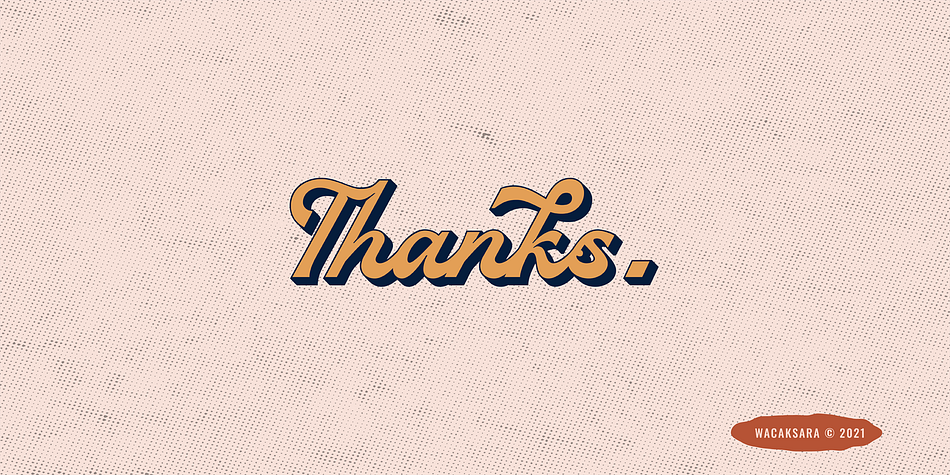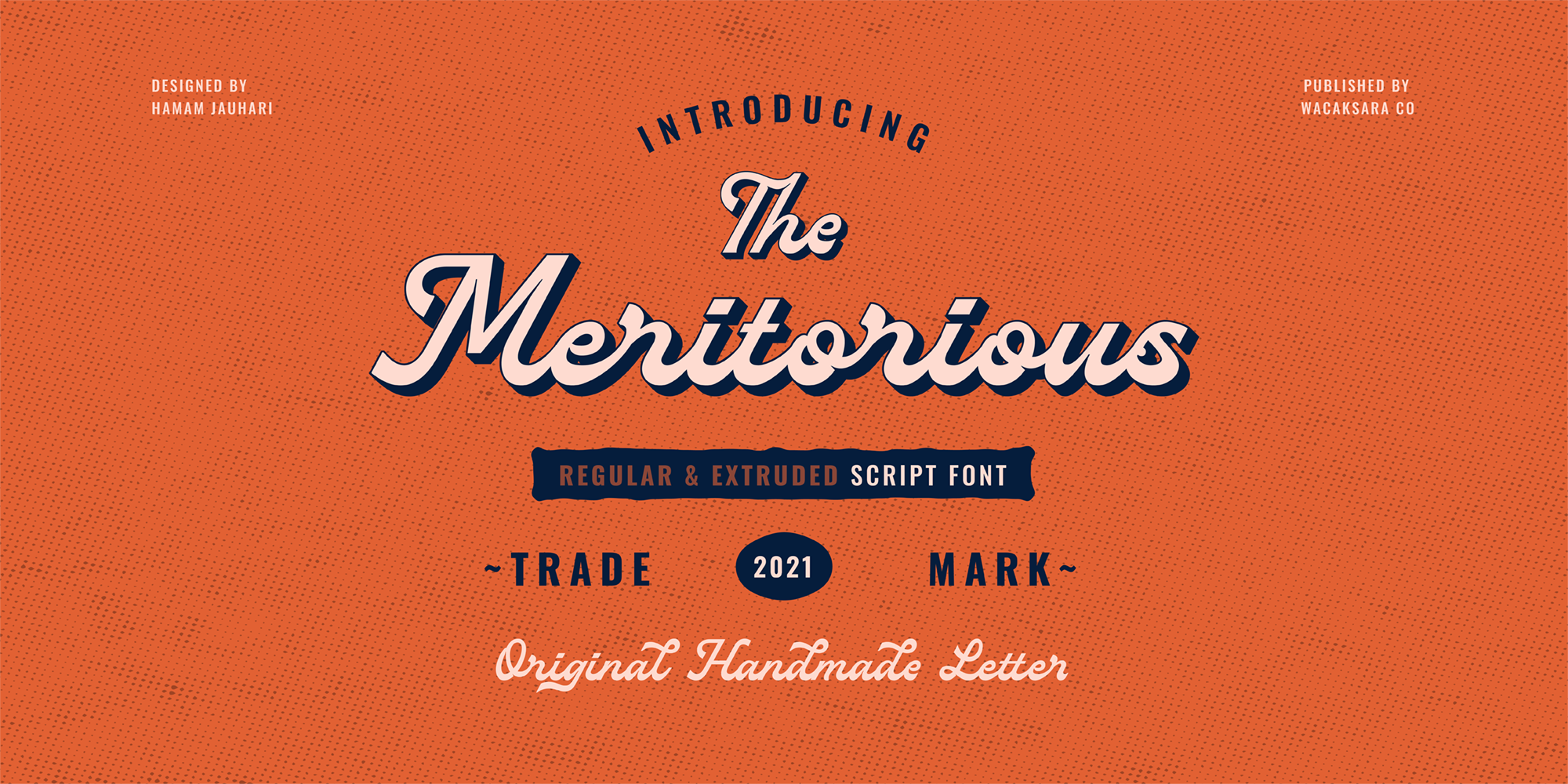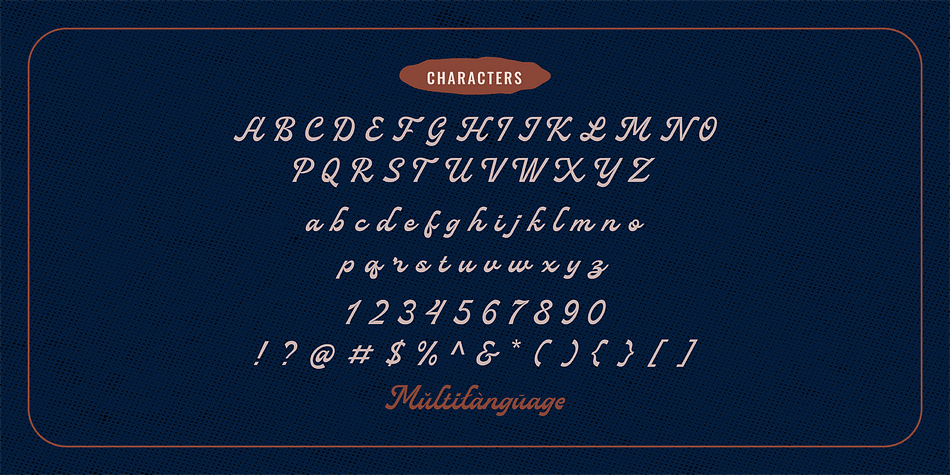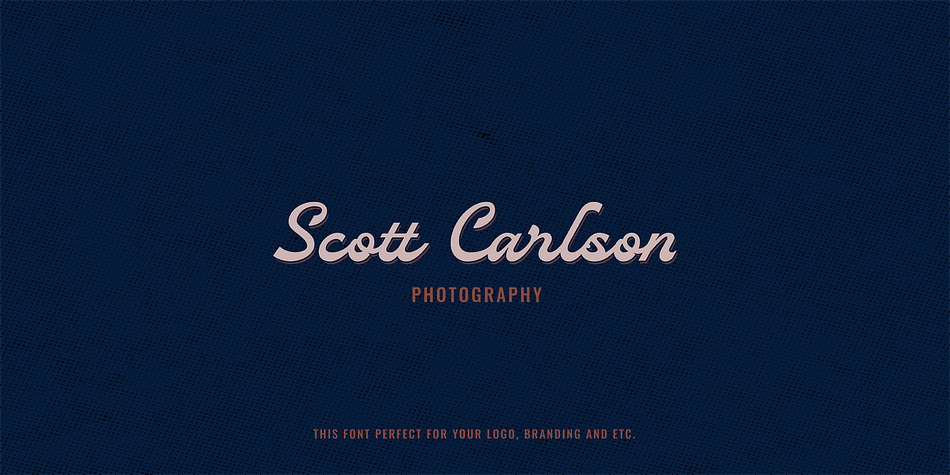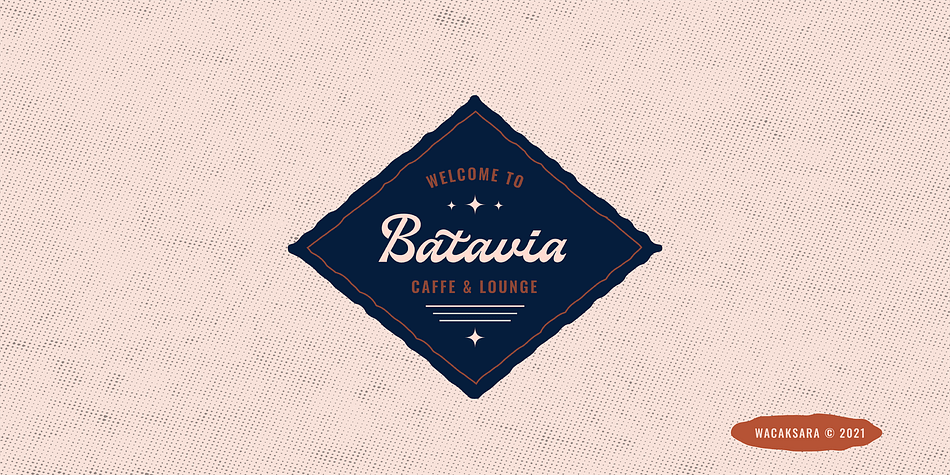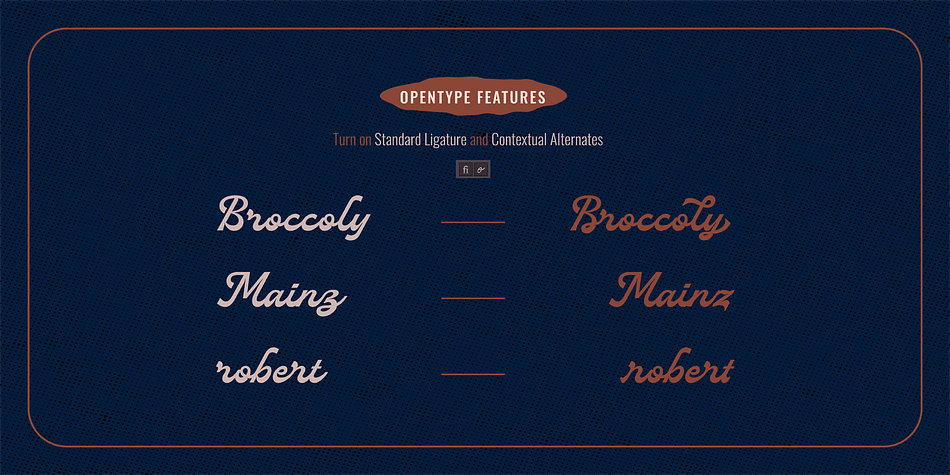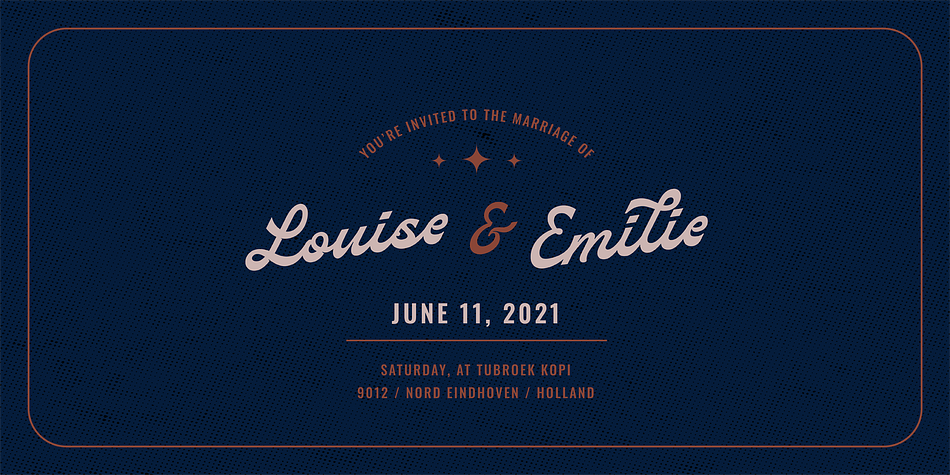
Meritorious
Designed by Hamam Jauhari, Meritorious is a brush script font family. This typeface has two styles and was published by Wacaksara Co.
Meritorious is a script font with a bold vintage style. come with two versions (regular and extruded).
This font is inspired by the manual lettering style that is suitable for your design needs such as book cover, logotype, branding, letterhead, poster, product packaging, label, invitation, and more.
Meritorious comes with uppercase, lowercase, numbers, punctuation and there are variations on each character including OpenType alternatives, common ligatures.
Foundry Wacaksara Co
Designer Hamam Jauhari